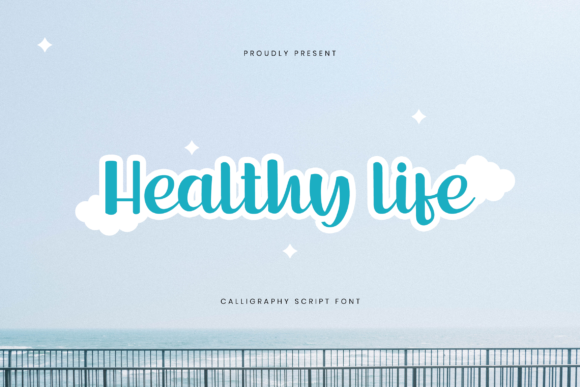
Dive into the world of Healthy Life Font, where your creations will come alive with its captivating script style. This remarkable font, crafted by the visionary team at namaracreativestudio, exudes warmth and authenticity, effortlessly enhancing any design project it graces.
Healthy Life Font is not merely a collection of letters; it's a gateway to a universe of boundless possibilities. Its intricate curves and flowing lines mimic the gentle strokes of a calligrapher's pen, evoking a sense of timeless elegance and sophistication. Whether you're crafting heartfelt invitations, designing captivating logos, or creating social media posts that resonate, Healthy Life Font will elevate your work to new heights.
But what truly sets Healthy Life Font apart is its versatility. Its natural and unique style seamlessly adapts to a myriad of design concepts, from whimsical children's books to sophisticated wedding invitations. Its inherent charm adds a touch of authenticity to vintage-inspired designs and infuses contemporary projects with a nostalgic flair.
With Healthy Life Font, the written word transforms into an art form. Each character dances across the page, inviting your readers on a journey of discovery and delight. Its endearing quality makes it a perfect choice for personal branding, adding a touch of warmth and approachability to your online presence.
So, if you're seeking a font that sparks imagination, conveys authenticity, and empowers you to create designs that leave a lasting impression, look no further than Healthy Life Font. Its endless charm and versatility will ignite your creativity and help you craft projects that are both beautiful and unforgettable.